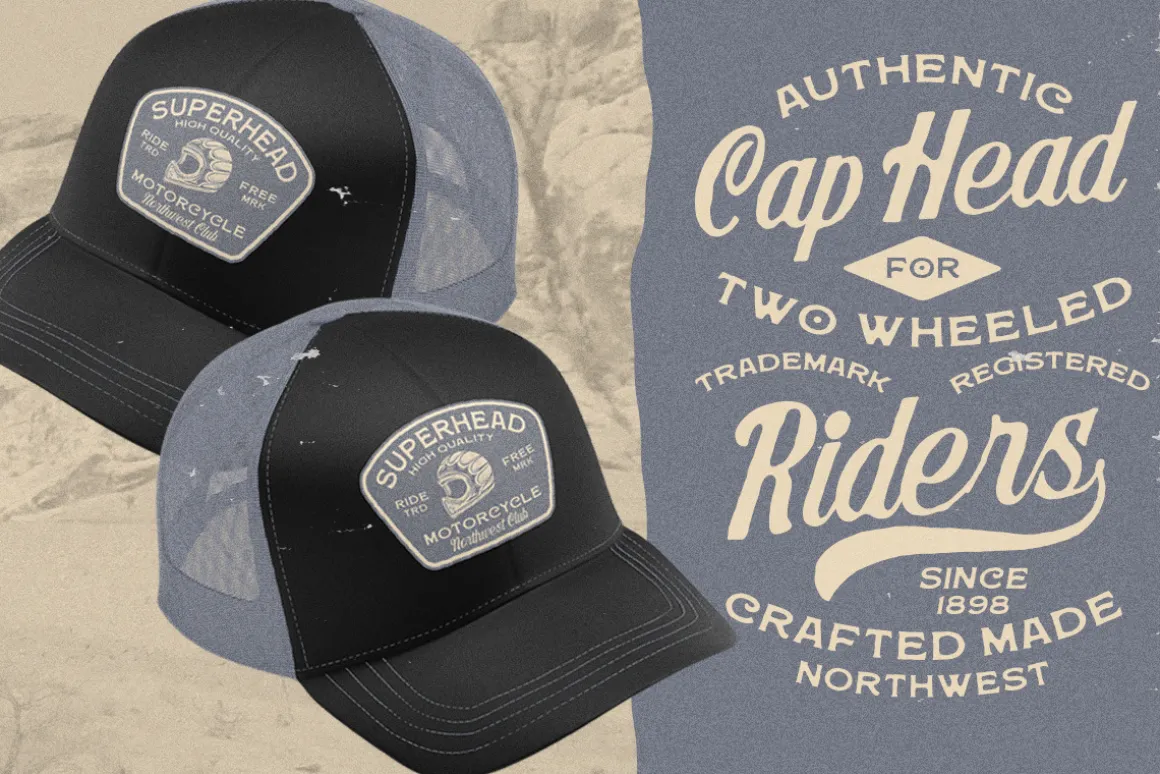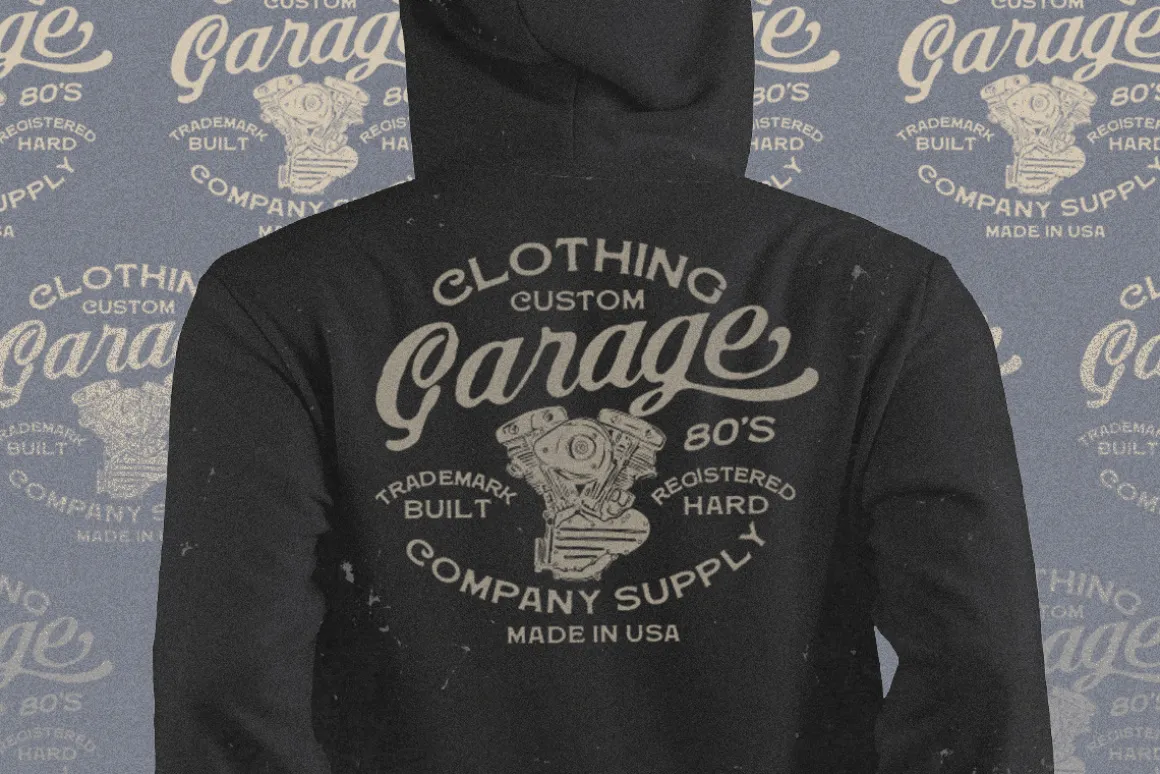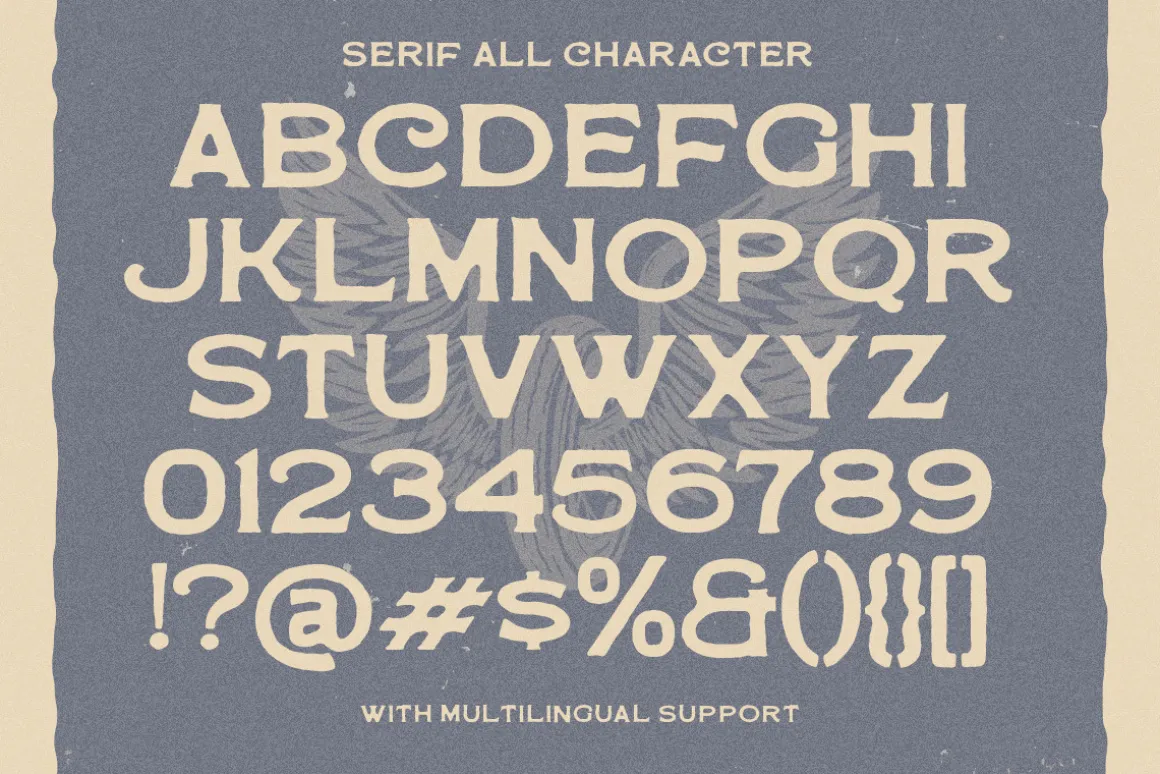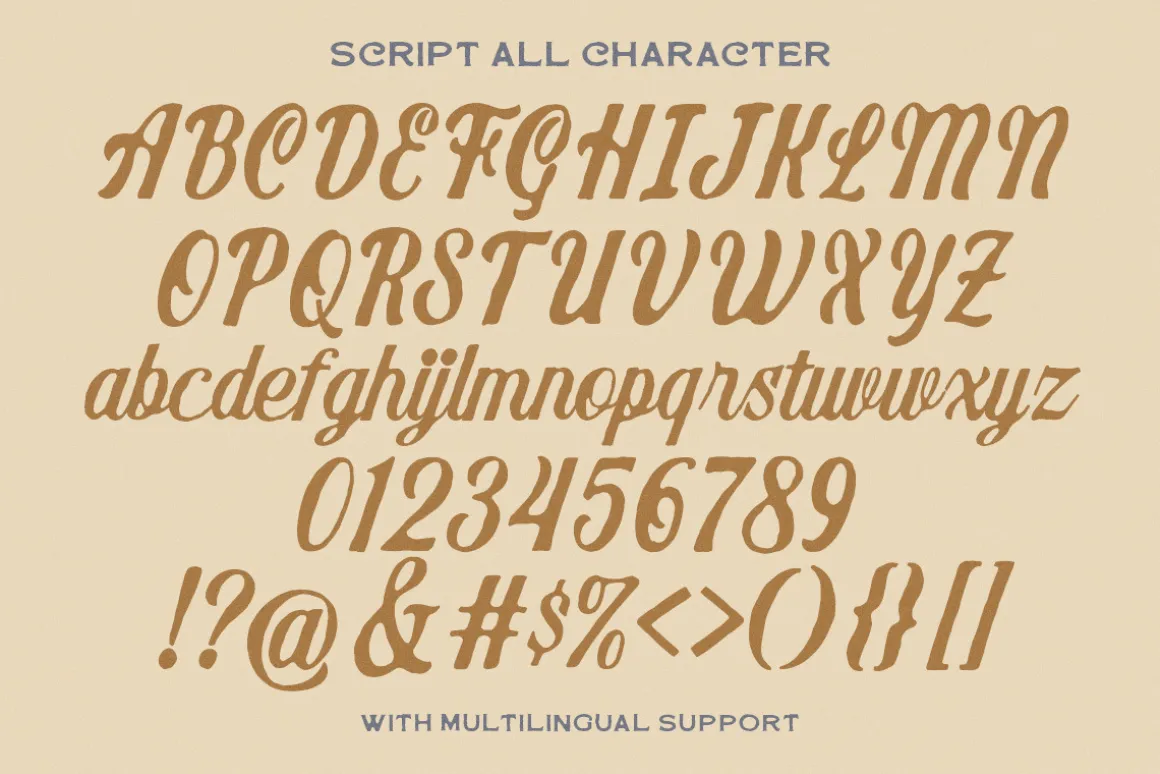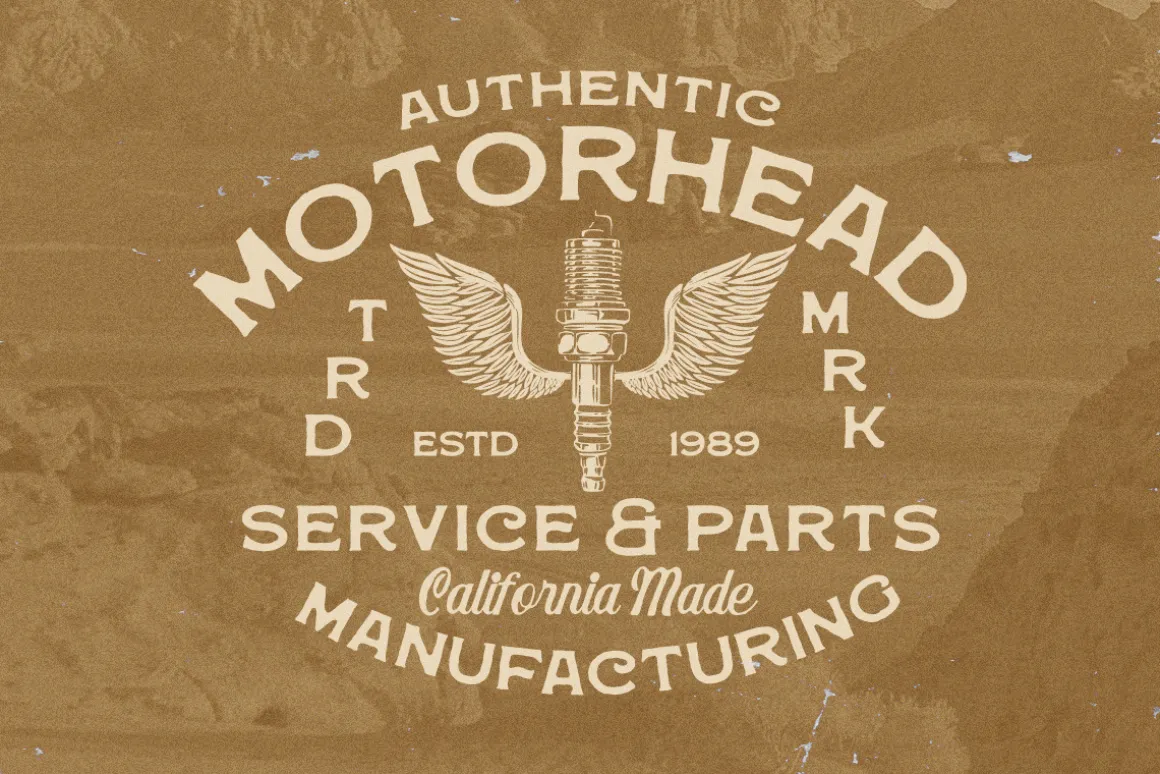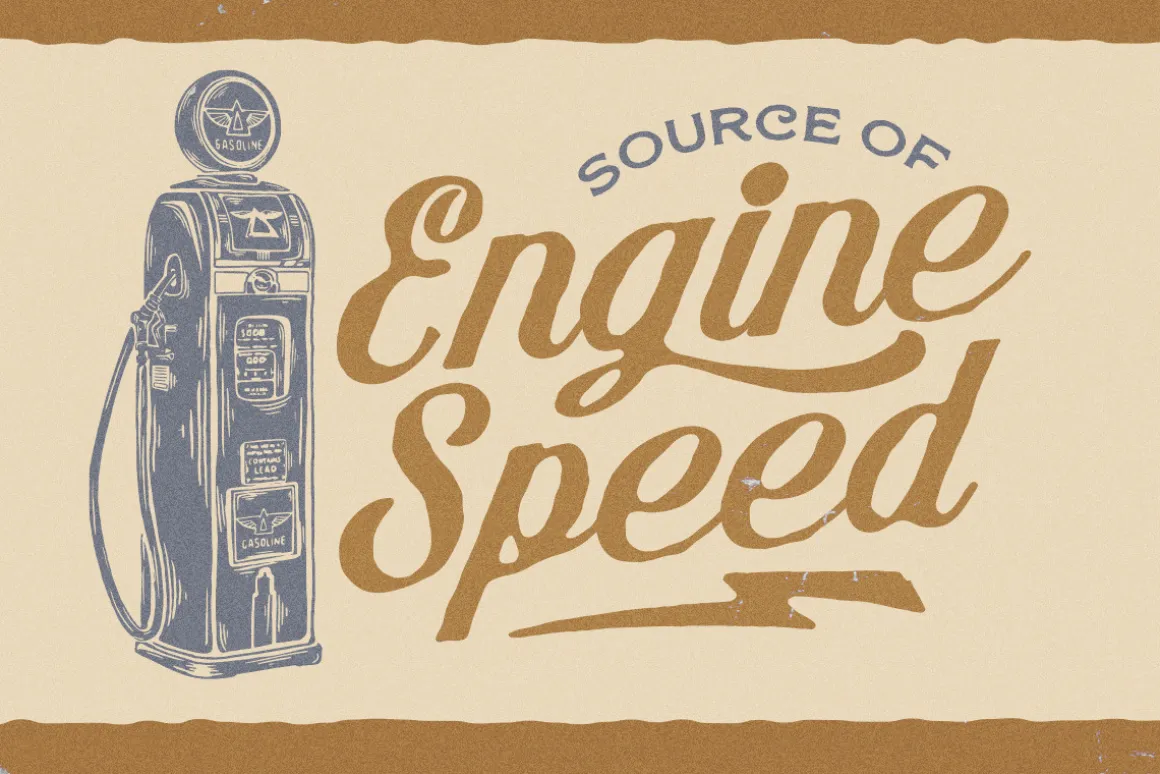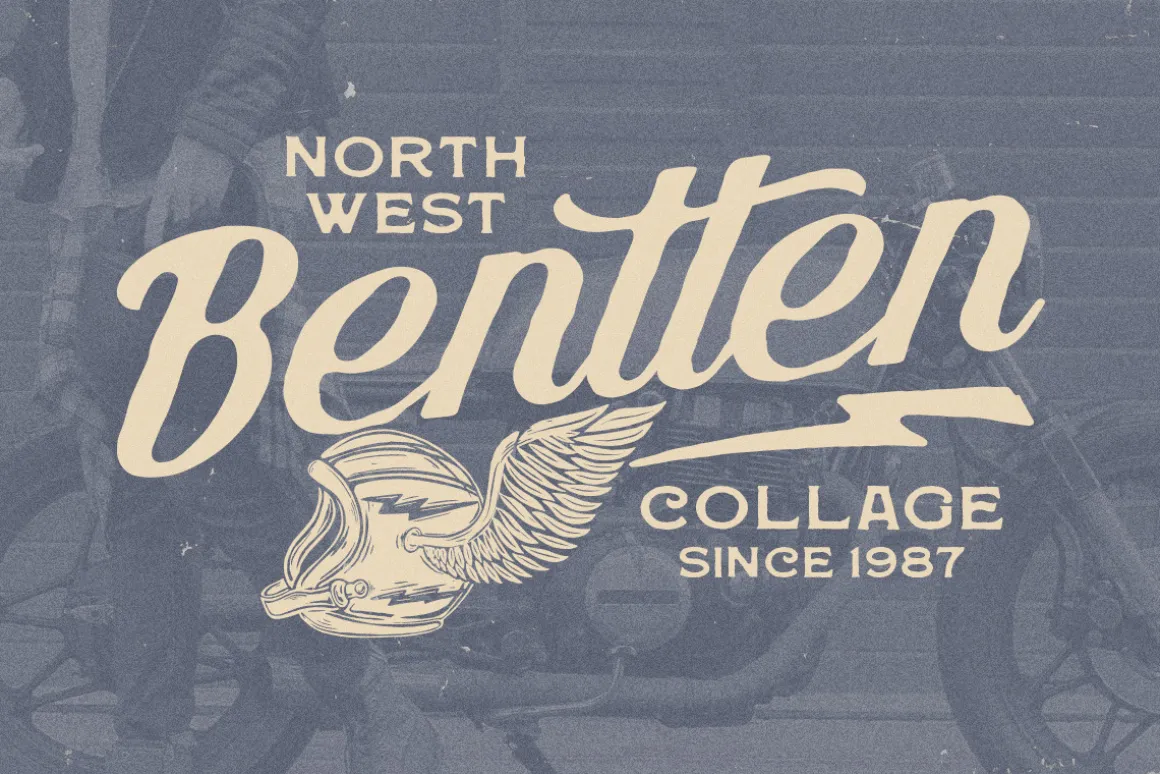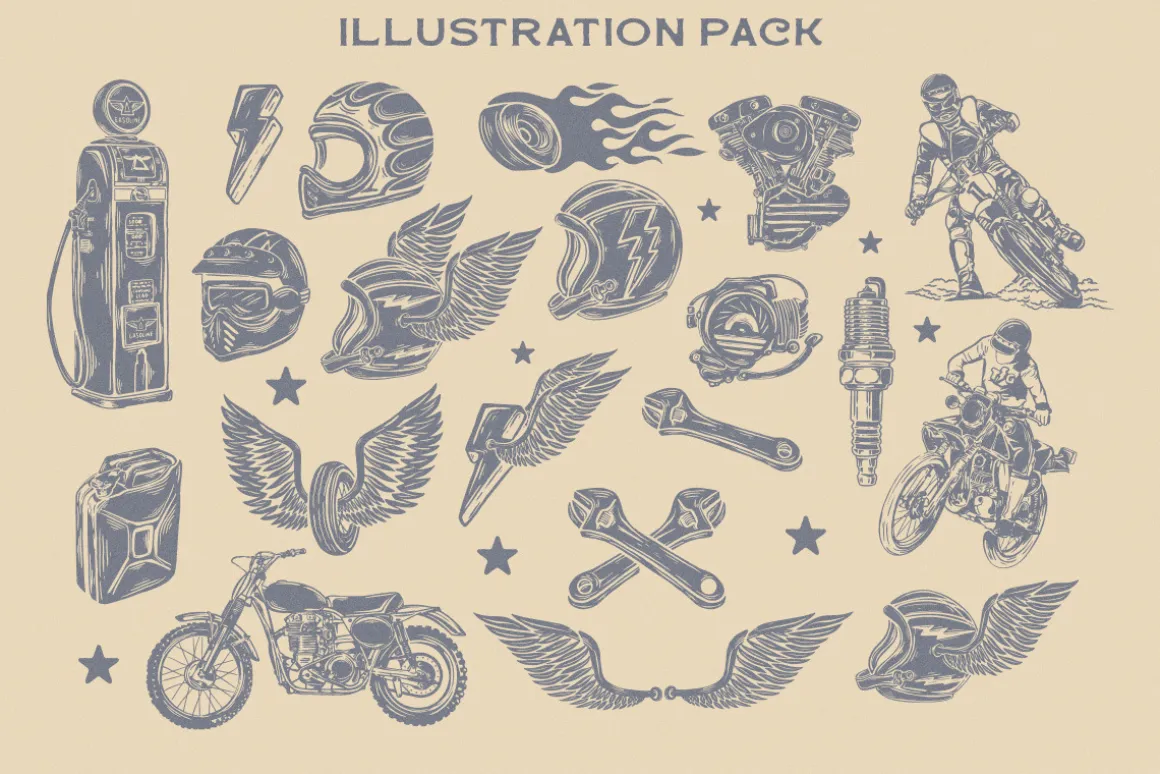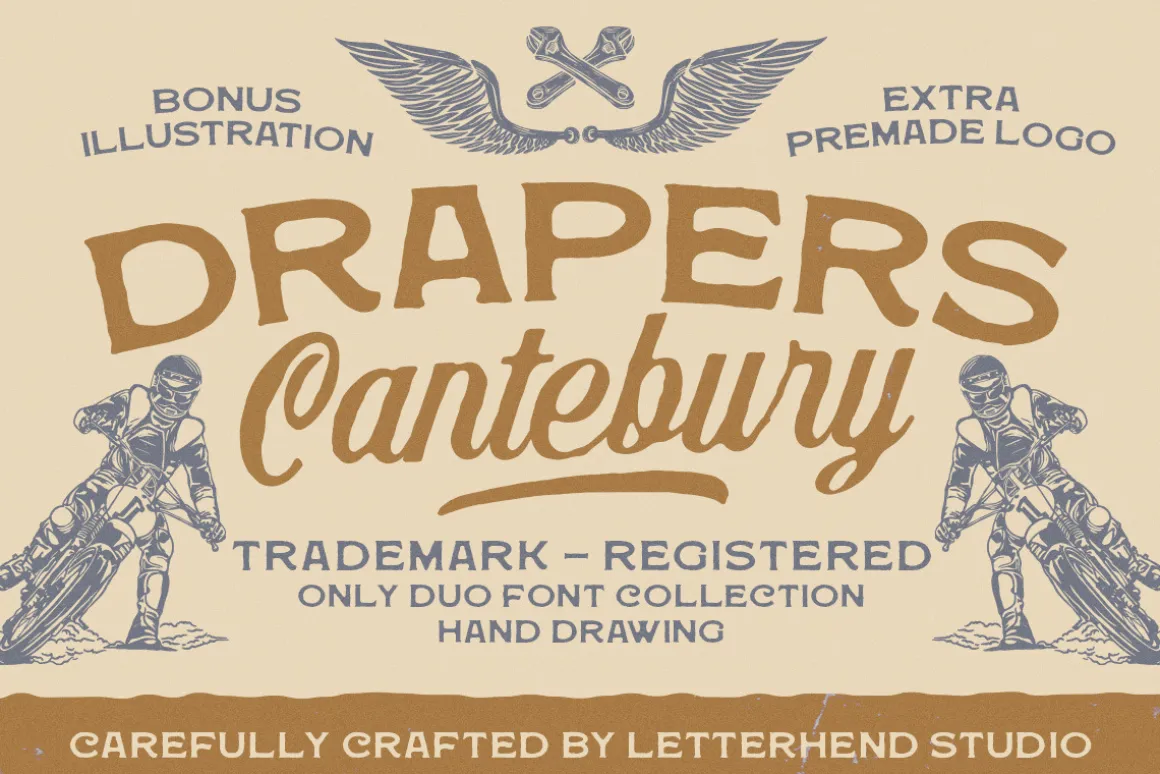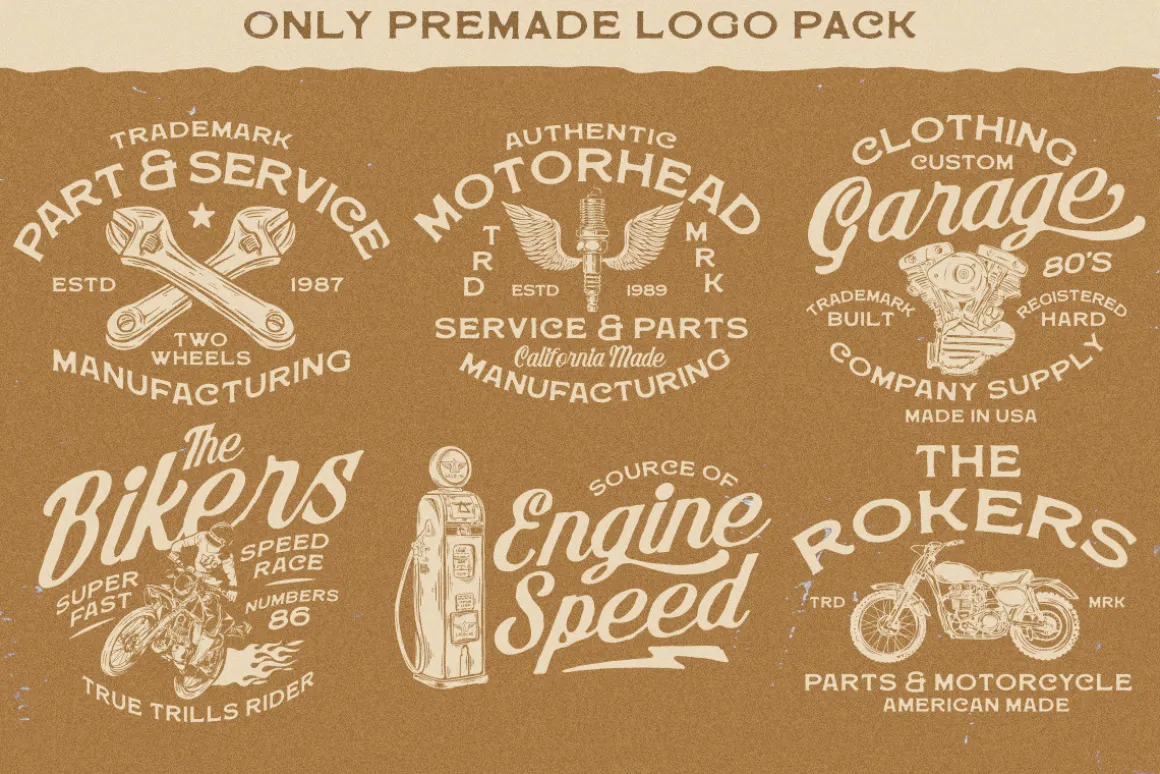
Drapers Canterbury is a bold and vintage-inspired duo font collection, carefully crafted to bring a rugged yet elegant touch to your designs. Featuring a mix of strong serif and classic script, this hand-drawn typeface is perfect for branding, logos, apparel, posters, packaging, and more.
- Uppercase & lowercase
- Numbers and punctuation
- Alternates & Ligatures
- Multilingual Support